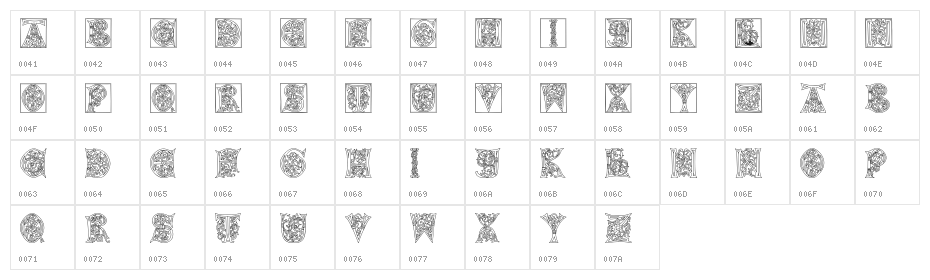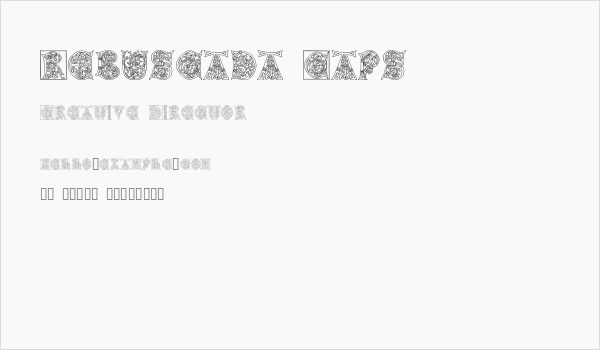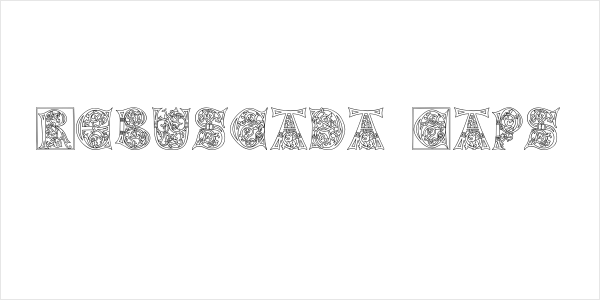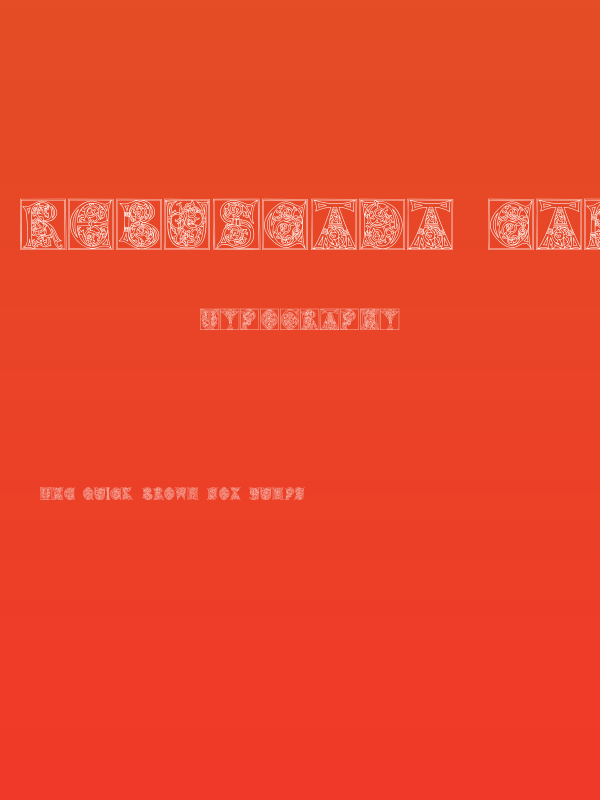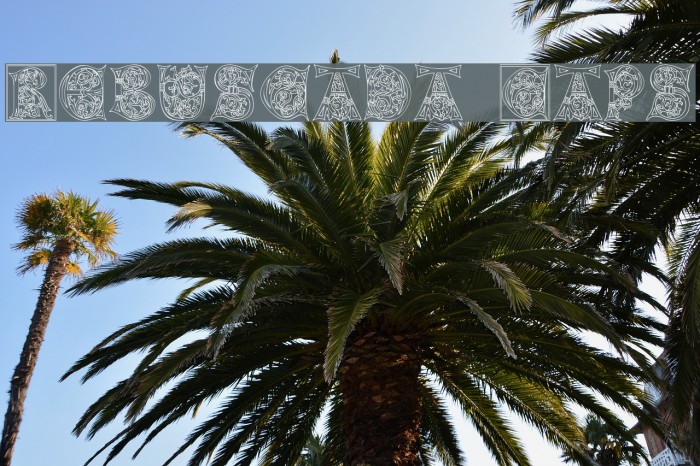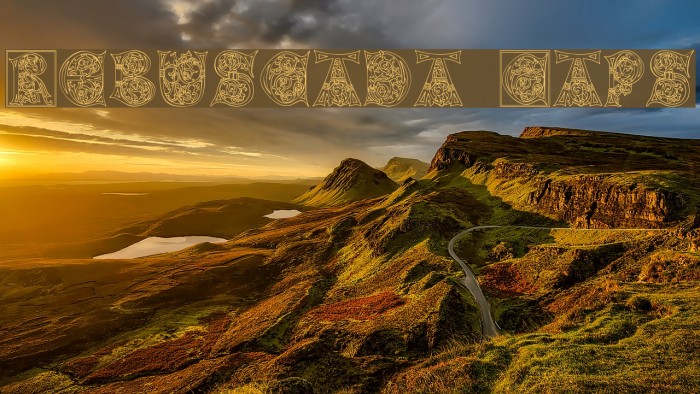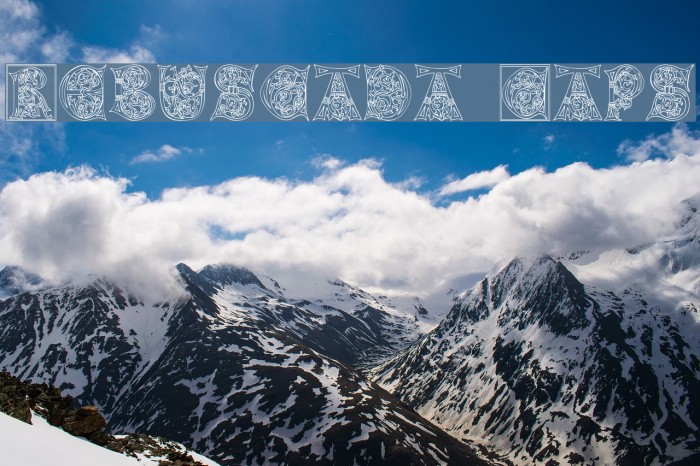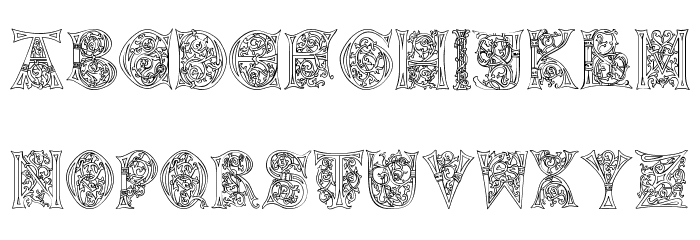
Rebuscada Caps Font
Rebuscada Caps Description
This font features an ornate and decorative style, with each letter intricately designed with floral and vine-like embellishments. The uppercase letters are enclosed in rectangular frames, adding a structured yet elaborate appearance. The detailed patterns within each character give it a luxurious and artistic feel, reminiscent of medieval manuscripts or vintage book covers. The font's complexity and artistic flair make it stand out, suitable for projects that require a touch of elegance and historical charm.
| Overall Style | Vintage |
| Use Case | Logos, Headlines, Decorative text |
| Proposed Projects | Ideal for wedding invitations, vintage-themed posters, book covers, and decorative signage. |